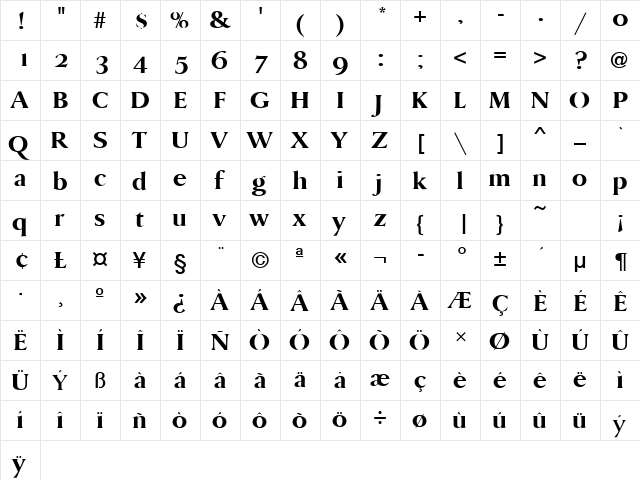
DanmarkURWTExtBol Regular
Design Context for DanmarkURWTExtBol Typeface
DanmarkURWTExtBol offers clean, dependable letterforms without strong stylistic allegiance, making it a practical choice for designers who need flexibility.